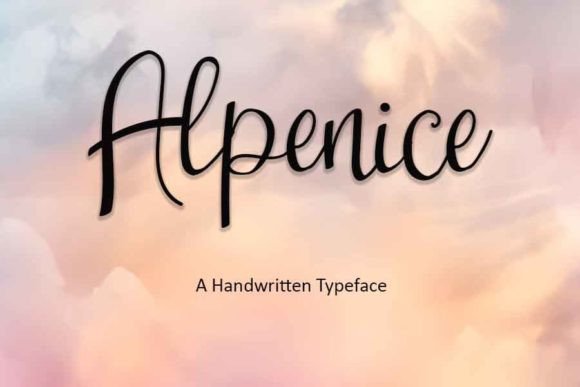
Journey back to the golden age of typewriters with Alpenice Font, the ultimate script font family that captures the essence of timeless elegance and modern charm. Inspired by the nostalgic allure of vintage typewriters, Alpenice transports you to a world where words dance gracefully across the page, leaving an enduring impression.
Crafted with meticulous care by the renowned Emily Store, Alpenice embodies the beauty of handwritten letters, each meticulously shaped to evoke a sense of authenticity and warmth. Its delicate curves and charming imperfections add a touch of character and personality to your designs, making them stand out from the ordinary.
Whether you're creating eye-catching logos, captivating branding, or heartfelt quotes, Alpenice is your perfect companion. Its versatility knows no bounds, lending its charm to a myriad of creative projects. Let Alpenice elevate your designs with its timeless appeal, transforming them into masterpieces that resonate with your audience.
With Alpenice, you can:
- Unleash your creativity and craft mesmerizing logos that leave a lasting impact, capturing the attention of your target audience and setting your brand apart from the rest.
- Embark on a branding adventure like no other, creating a cohesive and captivating brand identity that speaks volumes about your business's values and personality.
- Express your emotions and heartfelt messages with elegance and flair, crafting quotes that resonate with your audience and leave a lasting impression.
Embrace the allure of Alpenice Font today and embark on a creative journey where your imagination knows no bounds. Let your designs bloom with timeless beauty and modern sophistication as you unlock the endless possibilities that await.